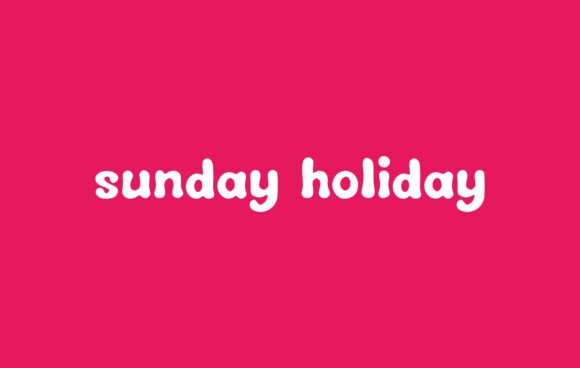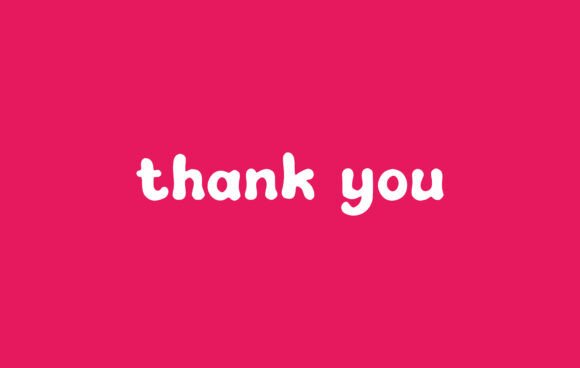
Do you remember that moment when a font just clicks, and you know you’ve found the one? The moment when your creative ideas start flowing, and you can’t wait to bring them to life? For designers, this moment is what makes all the hard work worth it.
Aronia Font is the perfect companion for those special moments. This authentic handwritten font is designed to add a touch of romance to your designs, making it perfect for magazine headlines, social media, branding, wedding invitations, and more. With its legibility and versatility, Aronia Font is a true favorite among designers, and for good reason – it has the power to elevate your creative ideas to new heights.
Aronia Font Key Features
- Font Family: Aronia Font is a sans-serif font family designed for modern and clean typography.
- Character Count: Aronia Font contains over 1,000 glyphs, including Latin, Cyrillic, and Greek alphabets.
- Size and Resolution: Designed to be highly legible at various sizes, from 8pt to 72pt, with optimal resolution at 300 DPI.
- Unique Characteristics: Aronia Font features a unique blend of geometric and organic shapes, resulting in a modern and friendly feel.
- Language Support: Supports multiple languages, including English, Spanish, French, German, Italian, Portuguese, and many more.
Aronia Font Review
Aronia Font is a modern sans-serif typeface that has gained popularity among designers due to its clean and minimalistic design. Here’s my honest review of this font.
- ✨ Clean and legible: Aronia Font is incredibly easy to read, making it perfect for body text, titles, and even signage.
- ✨ Versatile: This font works well in various contexts, from digital displays to print materials, and even web design.
- ✨ Beautiful italics: The italics in Aronia Font are beautifully designed, adding a touch of elegance to any text.
- ⚠️ Limited language support: Aronia Font does not support certain languages, which may be a drawback for designers who work with multilingual projects.
- ⚠️ Limited font weight options: While Aronia Font comes in multiple weights, it lacks the extensive range of font weights and styles found in other popular sans-serif fonts.
Aronia Font is a solid choice for designers who value clean and modern typography. While it has its limitations, its versatility and beautiful design make it a great addition to any design project. With a bit more language support and font weight options, Aronia Font could become a top contender in the world of sans-serif fonts.
The Aronia Font is a versatile font that can be used in a variety of design projects, including:
- Business cards and resumes
- Posters and flyers
- Editorial and creative writing projects
Some tips for getting the most out of the Aronia Font include:
- Experiment with different font sizes and colors to create visual interest
Lato is a modern sans-serif font that offers a clean and minimalist design, similar to Aronia Font. It features a wide range of weights and styles, making it suitable for a wide range of applications, from branding to editorial content. While Lato has a slightly more playful feel, it maintains a level of sophistication and elegance that is similar to Aronia Font.
For optimal readability, we recommend using Aronia Font at font sizes between 12pt and 18pt, with a line height of 1.2 to 1.5 times the font size. This will ensure clear and legible text, even at smaller font sizes.
Q: Can I customize the font’s color and weight using design applications?
Yes, Aronia Font supports a range of color and weight options, including bold, italic, and bold italic styles. Most design applications, such as Adobe Creative Cloud, will allow you to customize the font’s color and weight to suit your design needs.